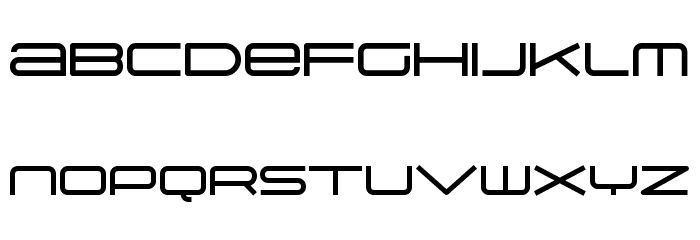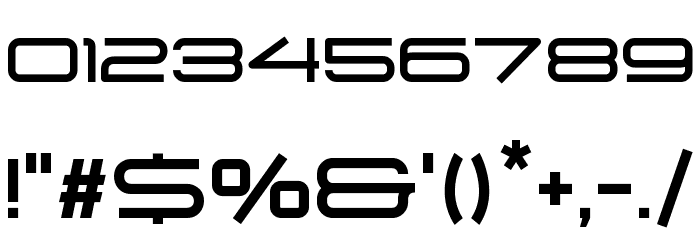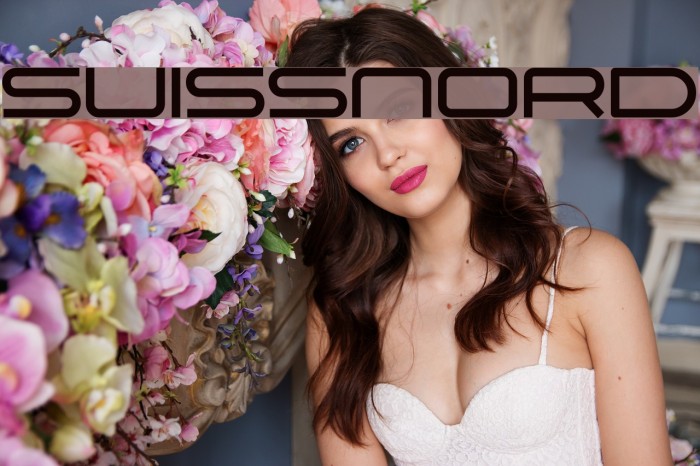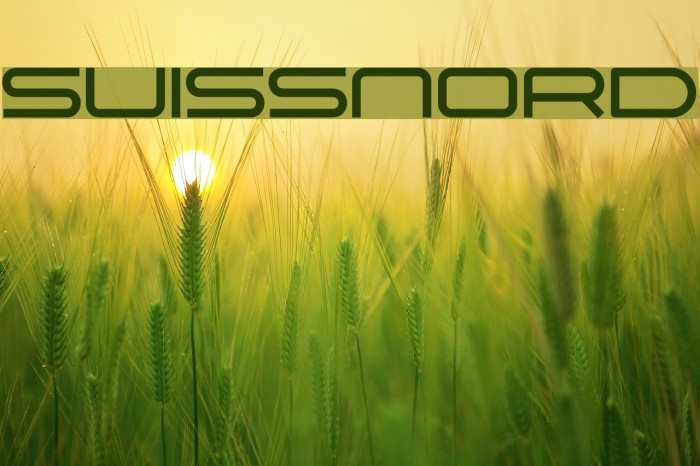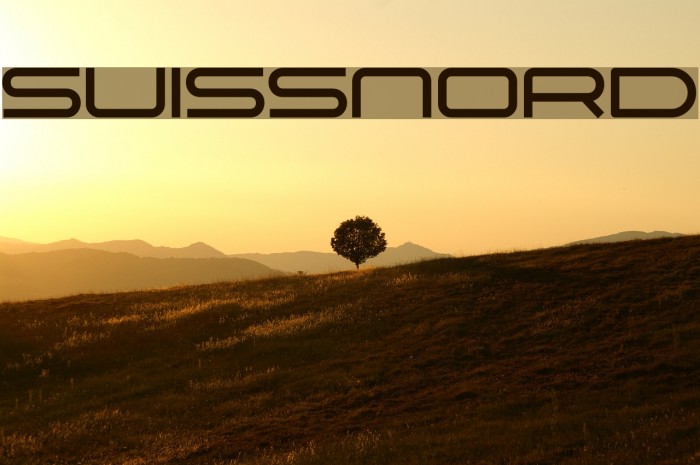
Suissnord Font
This font exhibits a sleek, modern design with a geometric and futuristic aesthetic. The characters are constructed with clean, straight lines and rounded edges, giving it a distinctive and contemporary look. The uppercase and lowercase letters maintain a consistent style, with a uniform height that enhances readability. The numerals and special characters follow the same design principles, ensuring a cohesive appearance across all elements. The font's minimalistic approach makes it versatile for various applications, while its unique style adds a touch of sophistication and innovation.
A sleek, modern font with geometric and futuristic design elements.
- Proposed Projects: Ideal for tech branding, modern advertising, digital interfaces, and innovative product packaging.
- Use Case: Headlines, Logos, Digital Interfaces